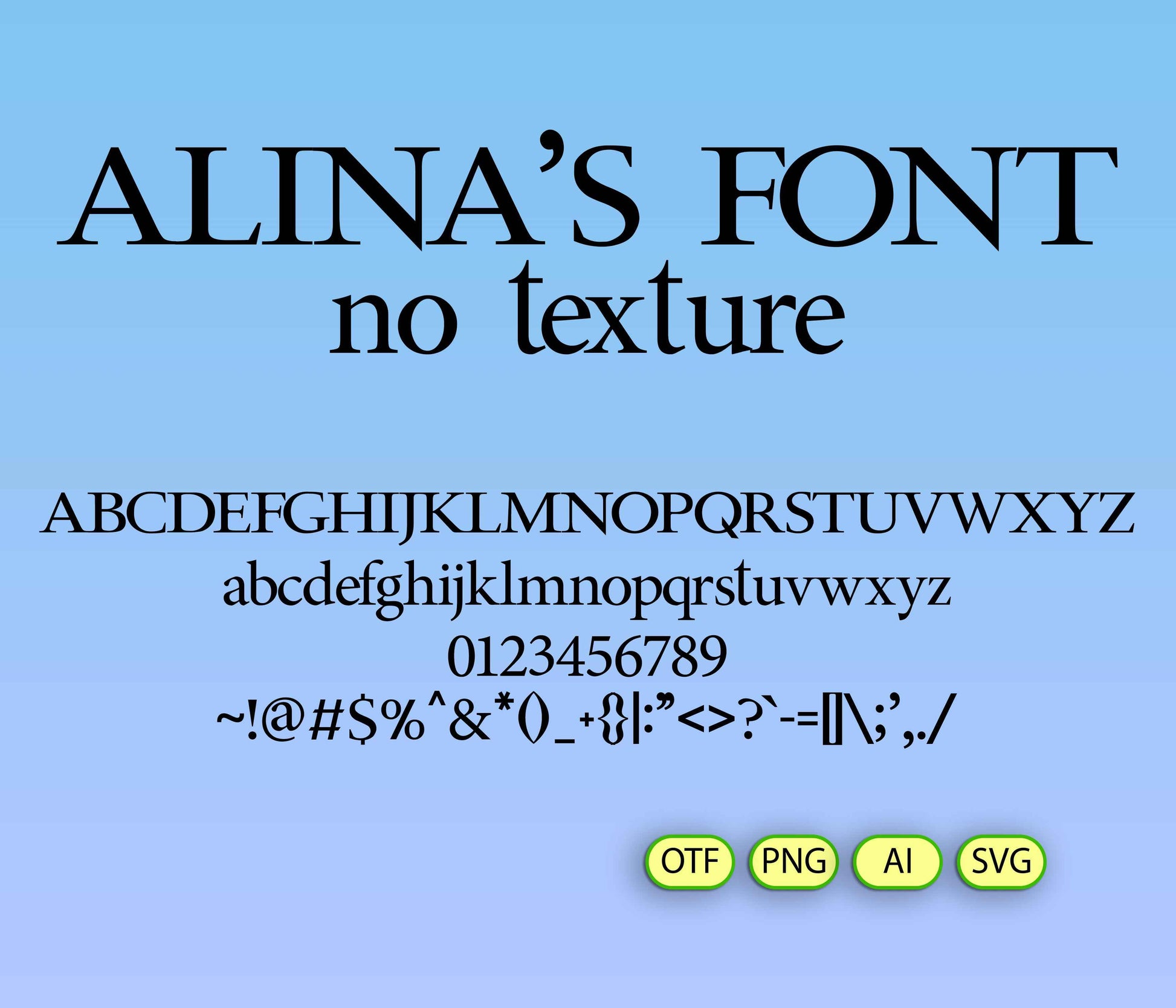
Colosseum Warrior Font
Colosseum Warrior Font: Unleash the Power of Ancient Rome
Step into the arena with the Colosseum Warrior font, a typeface designed to evoke the grandeur and bravery of ancient Rome. Perfect for projects that demand a strong, impactful presence, this font captures the essence of epic battles and historic tales. Colosseum Warrior font features bold, sharp lines that mirror the architectural and textual elements of the Roman era. Its sturdy, commanding characters are ideal for creating a powerful visual impact in your designs.
Application and Customization
Use the Colosseum Warrior font to elevate historical movie posters, publications about ancient civilizations, thematic game interfaces, and promotional materials for events celebrating classical antiquity. Its robust style enhances the authoritative feel of any content related to ancient warfare or Roman culture.
Whether you're crafting a presentation on ancient history, designing merchandise for a historical epic, or creating visuals for a museum exhibit about gladiatorial combat, the Colosseum Warrior font brings a touch of Roman strength to your creations, making every word stand out with classical dignity and the spirit of ancient valor.